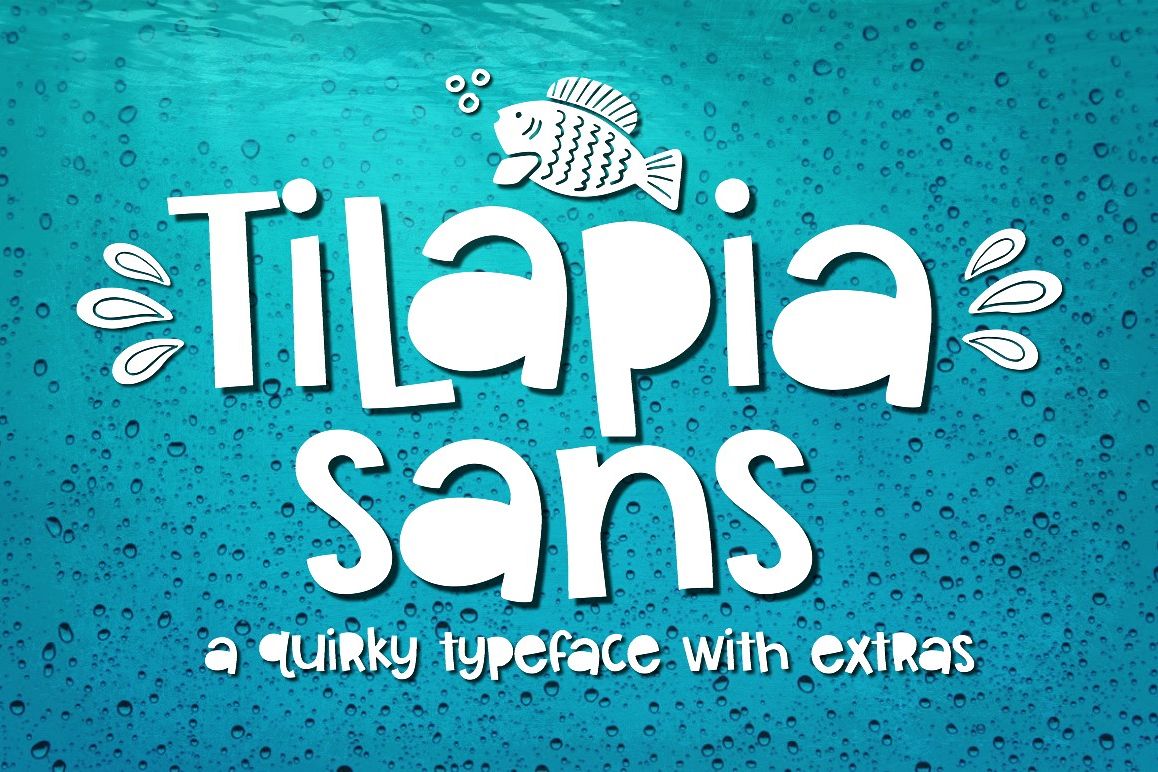
Tilapia Sans Handwritten Font with Doodles
ABOUT THIS FONT
Introducing Tilapia Sans Handwritten Font for Crafters! This solid bold handwritten font includes fish themed doodles and is perfect for many design projects! I've made this font for crafters, making it as smooth as possible, reducing the amount of nodes in each glyph to ensure optimal cutting with Cricut, Silhouette or other craft machines.